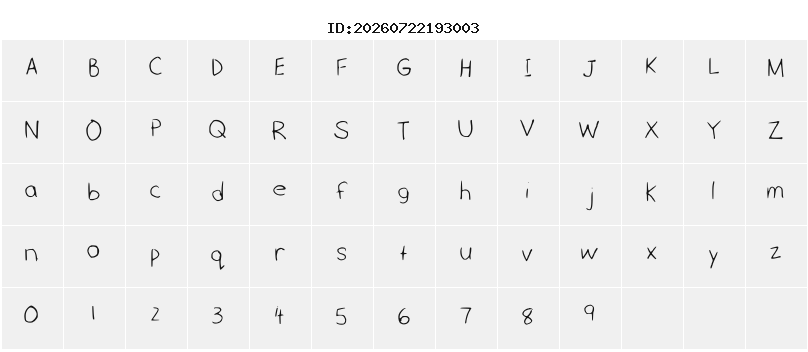
monicagalaxy Preview
• Font Name: monicagalaxy
• Full Font Name: monicagalaxy
About monicagalaxy.ttf
monicagalaxy.ttf is a modern, elegant sans-serif font designed for ultimate readability and visual harmony. Perfect for branding, headlines, web design, and print materials.